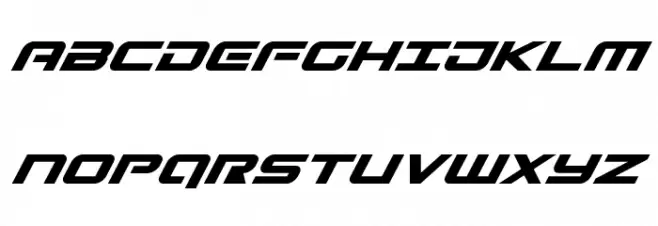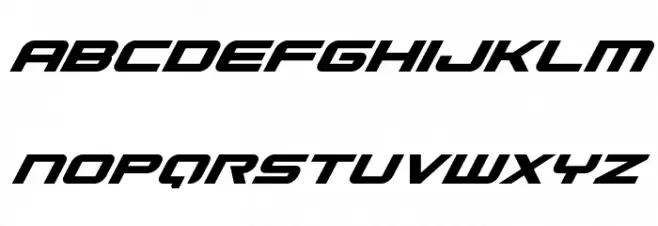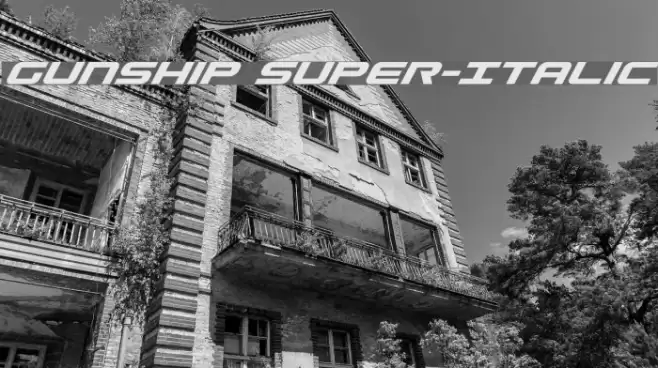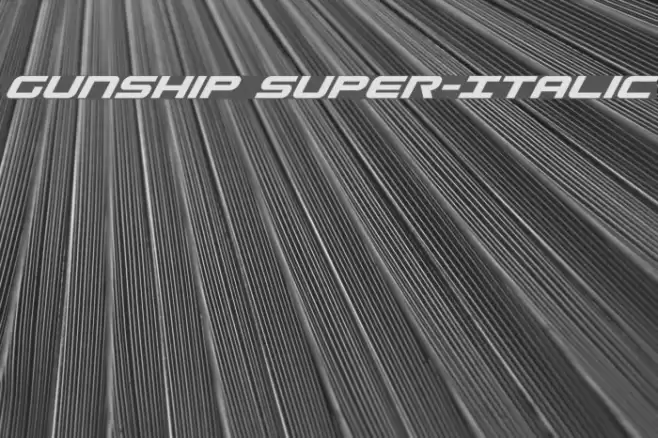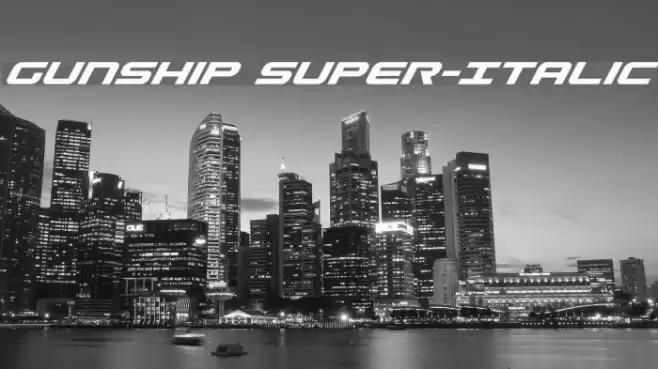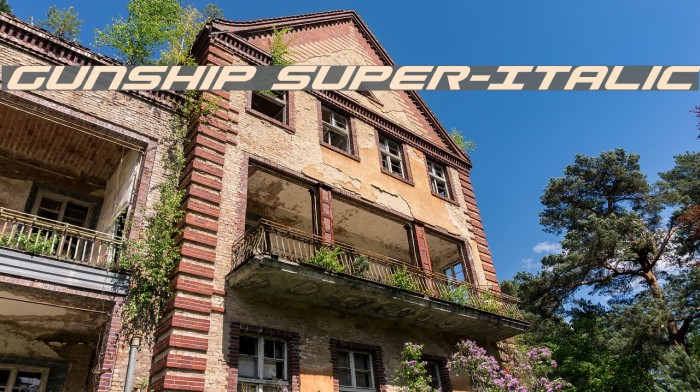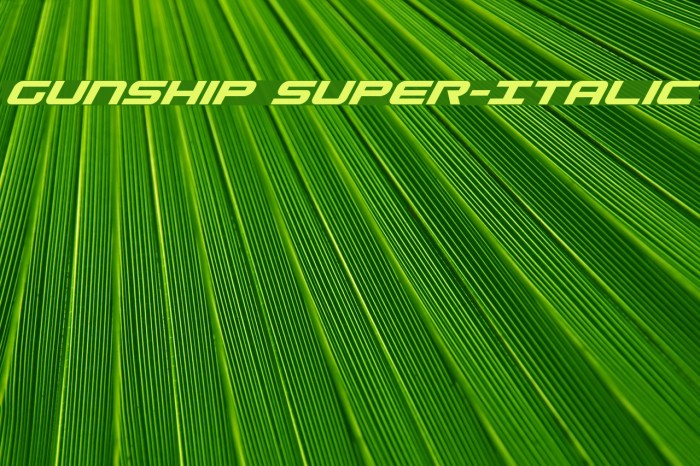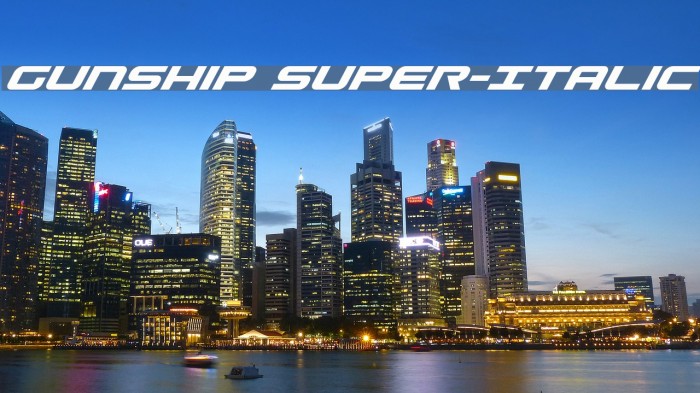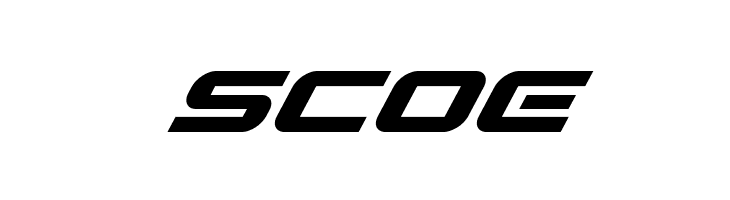
Gunship Super-Italic
This font features a dynamic and futuristic design with a strong italic slant, giving it a sense of motion and speed. The characters are bold and angular, with sharp edges and a geometric structure that conveys a modern and tech-oriented aesthetic. The uppercase and lowercase letters maintain a consistent style, while the numerals and special characters complement the overall design with similar angular forms. The font's boldness and unique style make it stand out, ideal for projects that require a strong visual impact.
A bold, italic, and futuristic font with angular, geometric characters.
- Proposed Projects: Ideal for technology branding, video game titles, sports team logos, and sci-fi themed designs.
- Use Case: Logos, Headlines, Posters